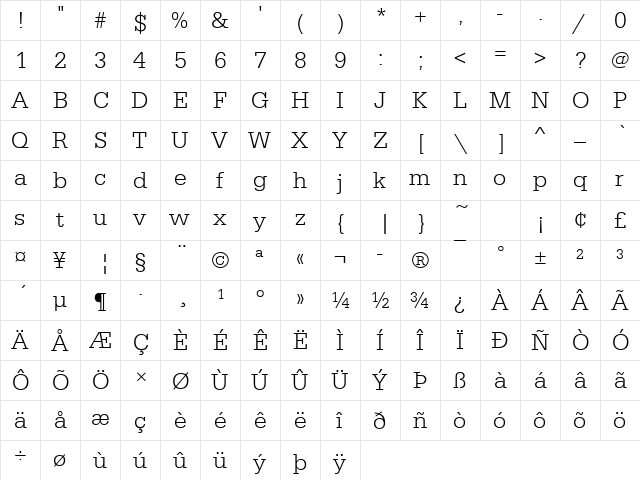
URWSarandibDLig Regular
Design Context for URWSarandibDLig Typeface
URWSarandibDLig is a composed and adaptable typeface that performs quietly and consistently across a wide range of design contexts.